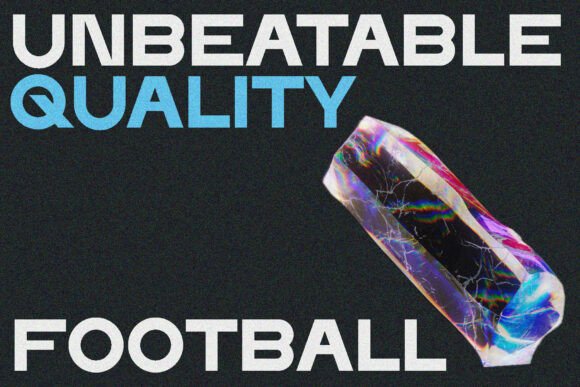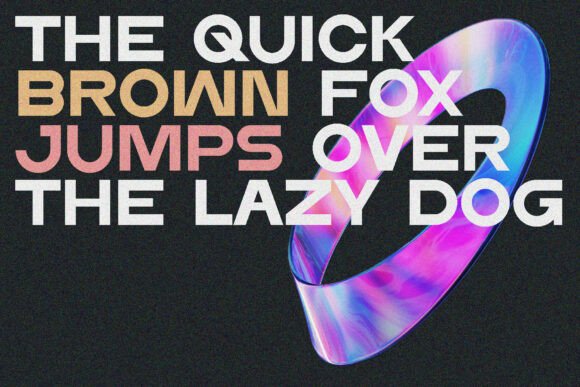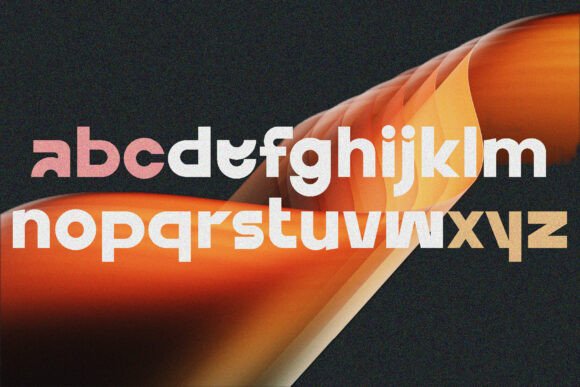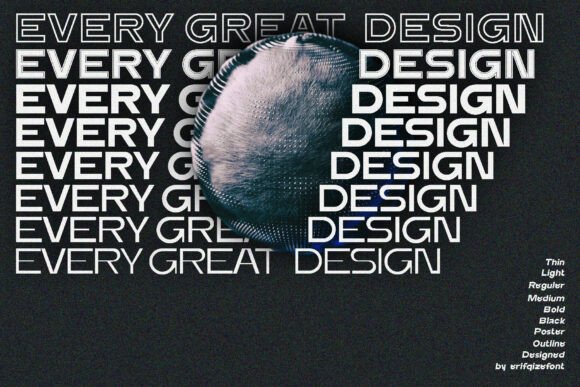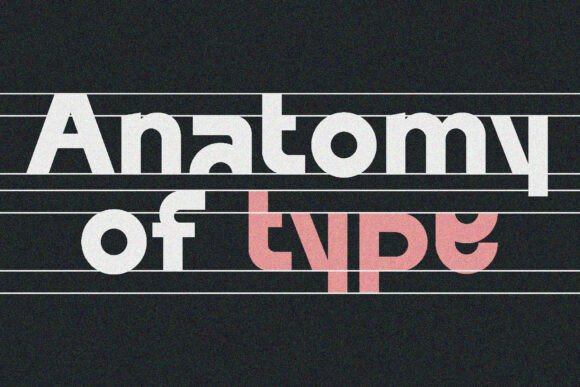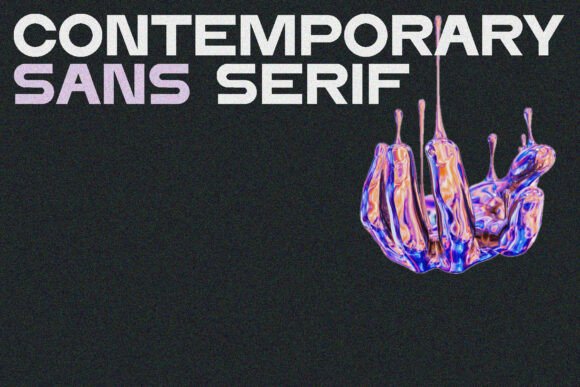
Introducing ERF Neot: The Ultimate Modern Geometric Sans Serif Font
In the ever-evolving world of typography, finding the perfect font that blends style, versatility, and functionality can be a daunting task. However, for designers and crafters on the lookout for a modern geometric sans serif font that exudes both boldness and minimalism, ERF Neot is here to revolutionize your design projects. This comprehensive font family is meticulously crafted to offer a striking yet versatile aesthetic, making it an indispensable tool for a wide array of design needs.
Clean Lines, Precise Curves, and Futuristic Minimalism
ERF Neot is characterized by its clean lines and precise curves, which collectively contribute to its modern geometric sans serif appeal. The font’s structure is bold and assertive, yet its minimalistic approach ensures that it remains unobtrusive and highly legible. This delicate balance between form and function makes ERF Neot an excellent choice for designers seeking a font that can elevate their work without overpowering it.
Versatility at Its Core: 16 Distinct Styles
One of the standout features of ERF Neot is its extensive range of styles, offering a total of 16 distinct variations. This versatility ensures that designers have ample flexibility to choose the perfect style that aligns with their project’s tone and requirements. Whether you’re working on branding materials, editorial layouts, UI/UX interfaces, or cutting-edge creative projects, ERF Neot provides the tools necessary to achieve a cohesive and impactful design.
Multilingual Support for Global Use
In today’s globalized world, design often needs to transcend linguistic and cultural boundaries. ERF Neot addresses this need with its comprehensive multilingual support. The font ensures excellent legibility across various languages, making it a reliable and practical choice for designers working on international projects. This feature not only broadens the font’s applicability but also streamlines the design process by offering a consistent aesthetic across different languages.
Ideal for a Wide Range of Design Applications
ERF Neot’s adaptability makes it suitable for a myriad of design applications. For tech startups and innovative companies, the font’s sleek and modern look can help convey a cutting-edge image. On the other hand, its professional and clean aesthetic also makes it an excellent choice for corporate identities seeking to project a sense of reliability and sophistication.
- Branding: Create a lasting impression with ERF Neot’s bold and assertive styles, perfect for logos and brand assets.
- Editorial Layouts: Enhance your publications with ERF Neot’s clear and legible text, ensuring an enjoyable reading experience.
- UI/UX Interfaces: Improve user experience with ERF Neot’s clean and intuitive design, ideal for digital interfaces.
- Creative Projects: Push the boundaries of your creative work with ERF Neot’s futuristic and minimalistic appeal.
Delivering Clarity, Impact, and Style
ERF Neot is more than just a font; it’s a design solution that delivers on all fronts. Its unique blend of bold structure and futuristic minimalism ensures that your designs stand out in a crowded digital landscape. Moreover, its versatility, multilingual support, and extensive style range make it an invaluable asset for designers and crafters looking to leave a lasting impact.
Whether you’re aiming to create a sleek tech vibe or a professional corporate identity, ERF Neot provides the clarity, impact, and style necessary to bring your vision to life. With ERF Neot, you can elevate your design projects, enhance your brand’s aesthetic, and ensure your message is conveyed with precision and elegance.
| Font Name | Erf Neot Font |
| Author | erifqizefont |
ERF Neot stands as a testament to modern geometric sans serif typography, offering a perfect blend of form and function. Its bold yet minimalistic design, extensive style range, and multilingual support make it an indispensable tool for designers and crafters worldwide. By incorporating ERF Neot into your design arsenal, you’re not just choosing a font; you’re embracing a design philosophy that prioritizes clarity, impact, and style.
Discover the limitless possibilities with ERF Neot and transform your design projects with a font that truly understands the needs of modern designers.